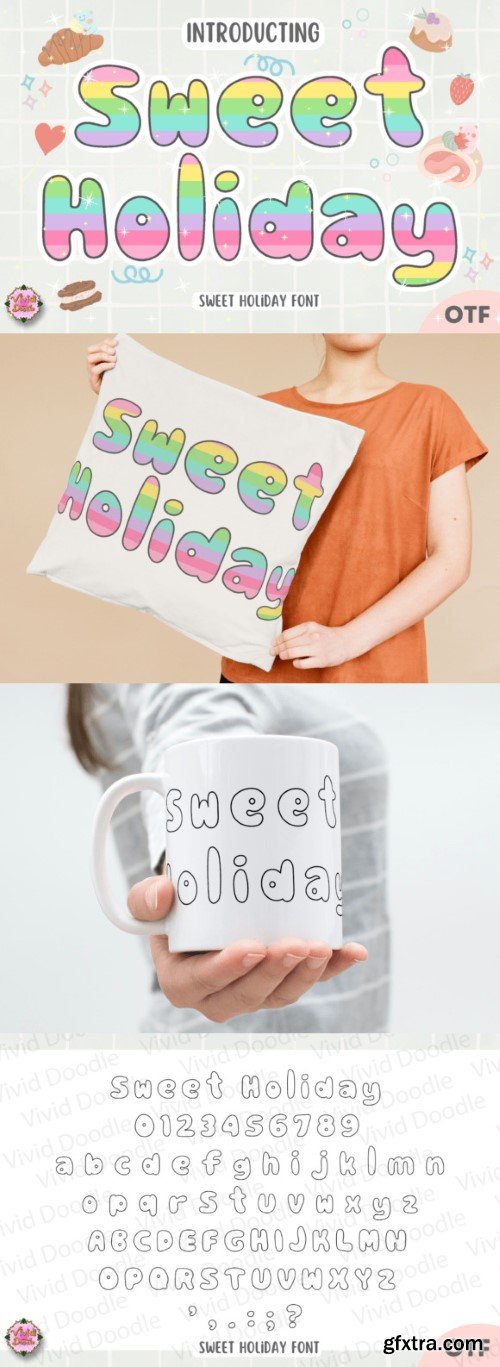
圣诞甜蜜字体
Introducing Sweet Holiday font—a delectable and festive typeface perfect for dessert-themed designs, food concepts, special holiday projects, and delightful decorations. Each letter is crafted with a sweet and joyful flair, making it ideal for creating a delectable and celebratory visual experience. Whether for holiday menus, party invitations, or any project that calls for a touch of sweetness, this font seamlessly blends a delightful aesthetic with a festive charm.